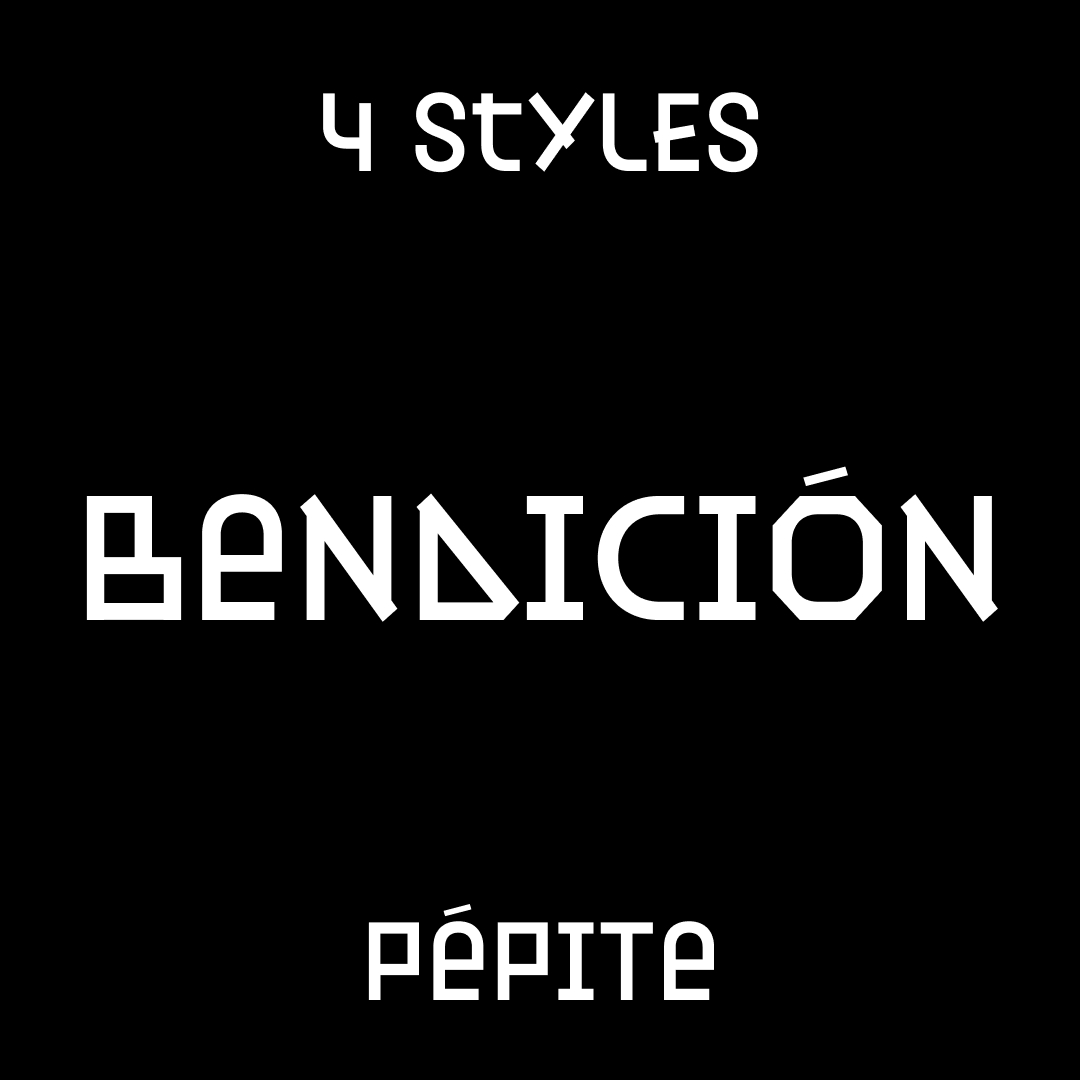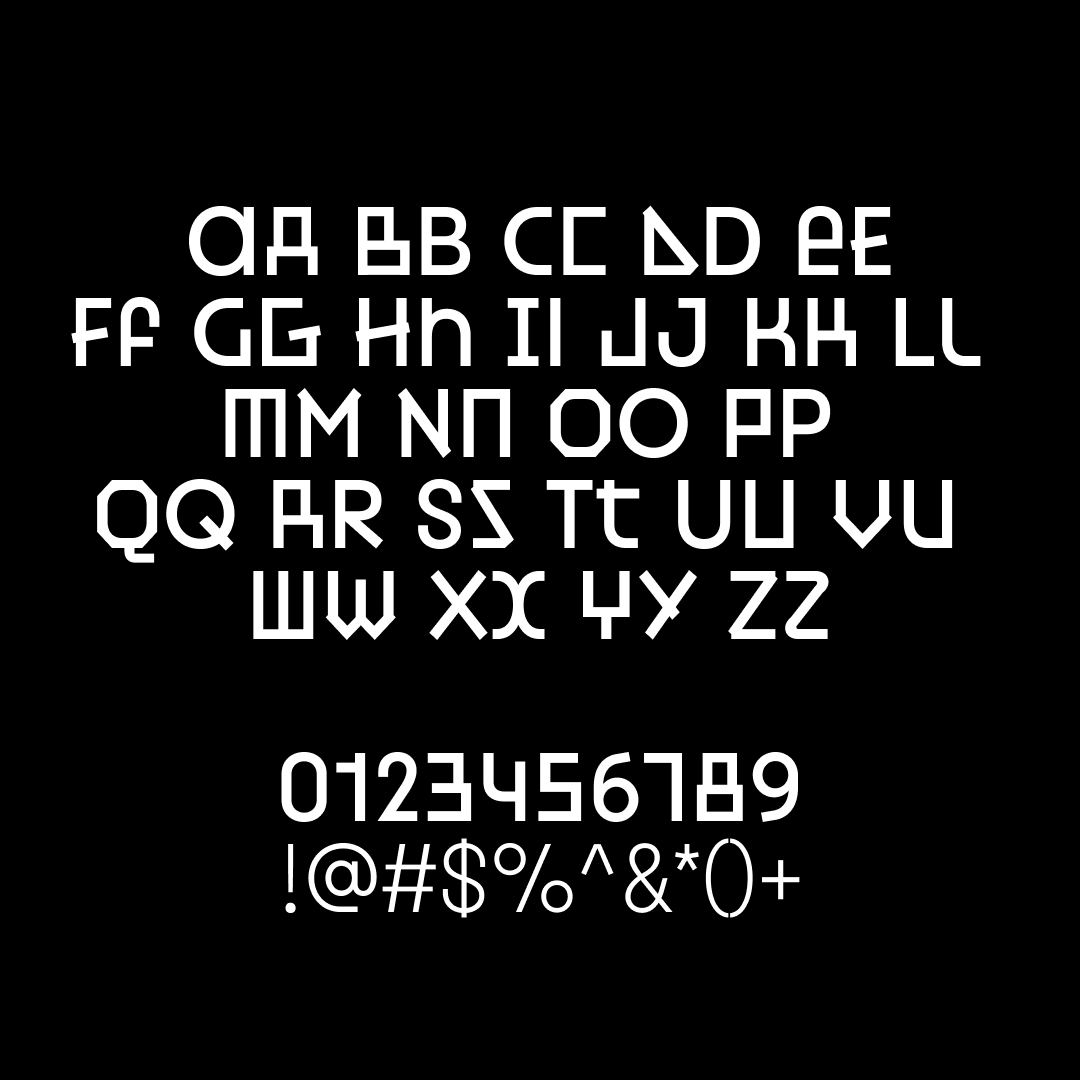
Bendición is a unicase display typeface with four weights (Light, Regular, Bold, and Extrabold). Its unique design allows for case alternates and stylistic sets, creating an unconventional feel.